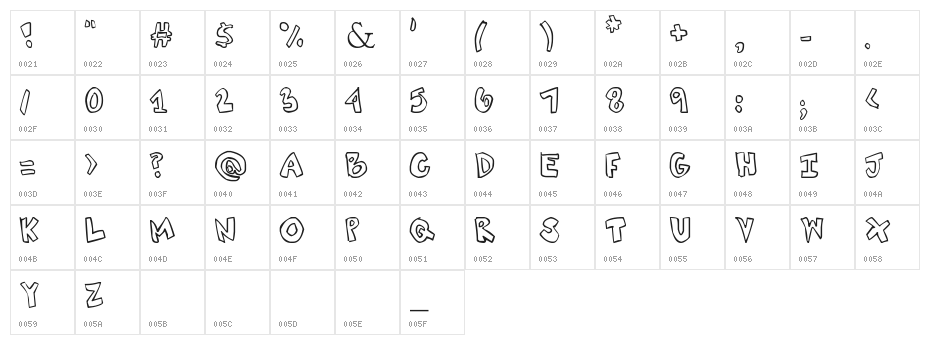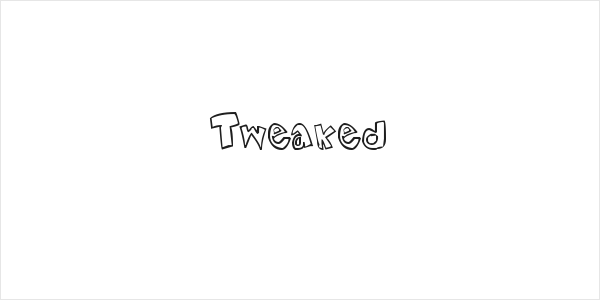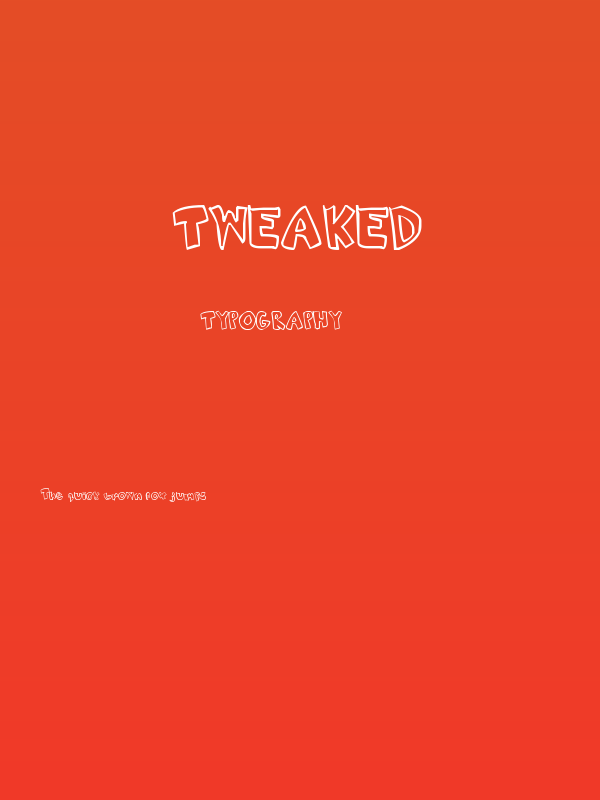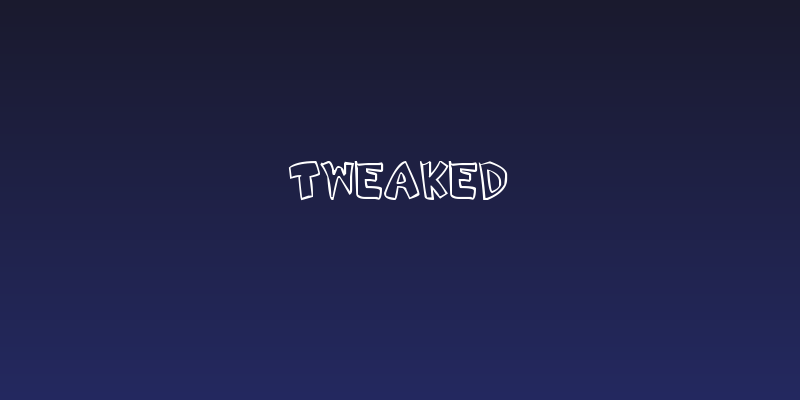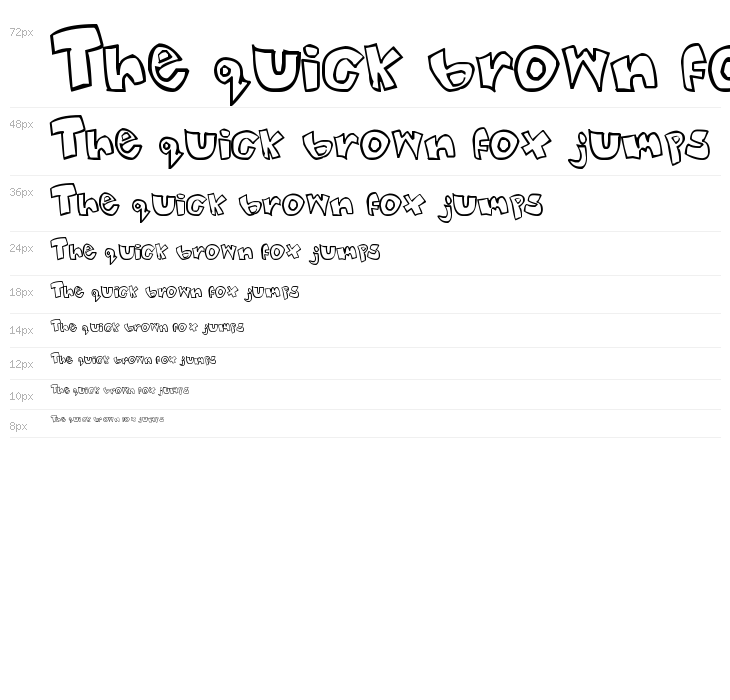
Tweaked Font
Tweaked Description
This playful and bold font features a hand-drawn, cartoonish style with thick, uneven strokes that give it a lively and energetic appearance. The letters are outlined, creating a bubble-like effect that adds to its whimsical charm. Each character is uniquely shaped, with a slightly irregular form that enhances its casual and fun aesthetic. The font maintains a consistent weight throughout, providing a cohesive look while still allowing for individual character quirks. Its informal and approachable design makes it ideal for projects that require a touch of humor and creativity.